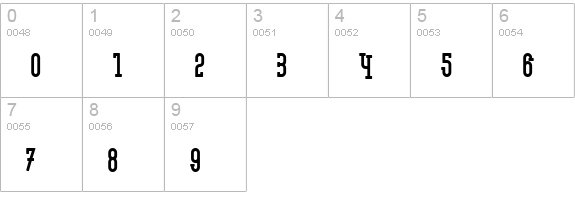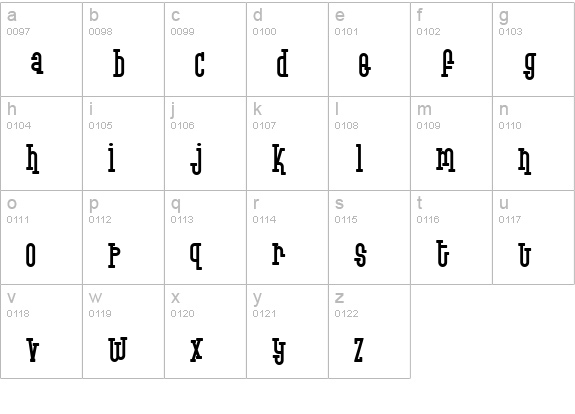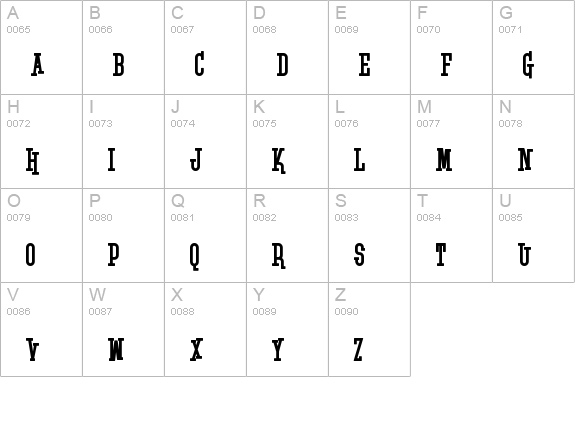
Krupke Font Details
The Krupke font is a versatile and modern typeface that combines a bold and unique design with a touch of elegance. Its clean lines and stylish curves make it perfect for a wide range of design projects, from branding to editorial work. With its eye-catching look and professional feel, Krupke font is sure to make your text stand out. And the best part? Krupke font is available for free download at FontsMarket.com. Whether you're a designer looking for a fresh new font to add to your collection or a business owner in need of a stylish typeface for your marketing materials, Krupke font has got you covered. Download it today and start adding a touch of sophistication to your projects!